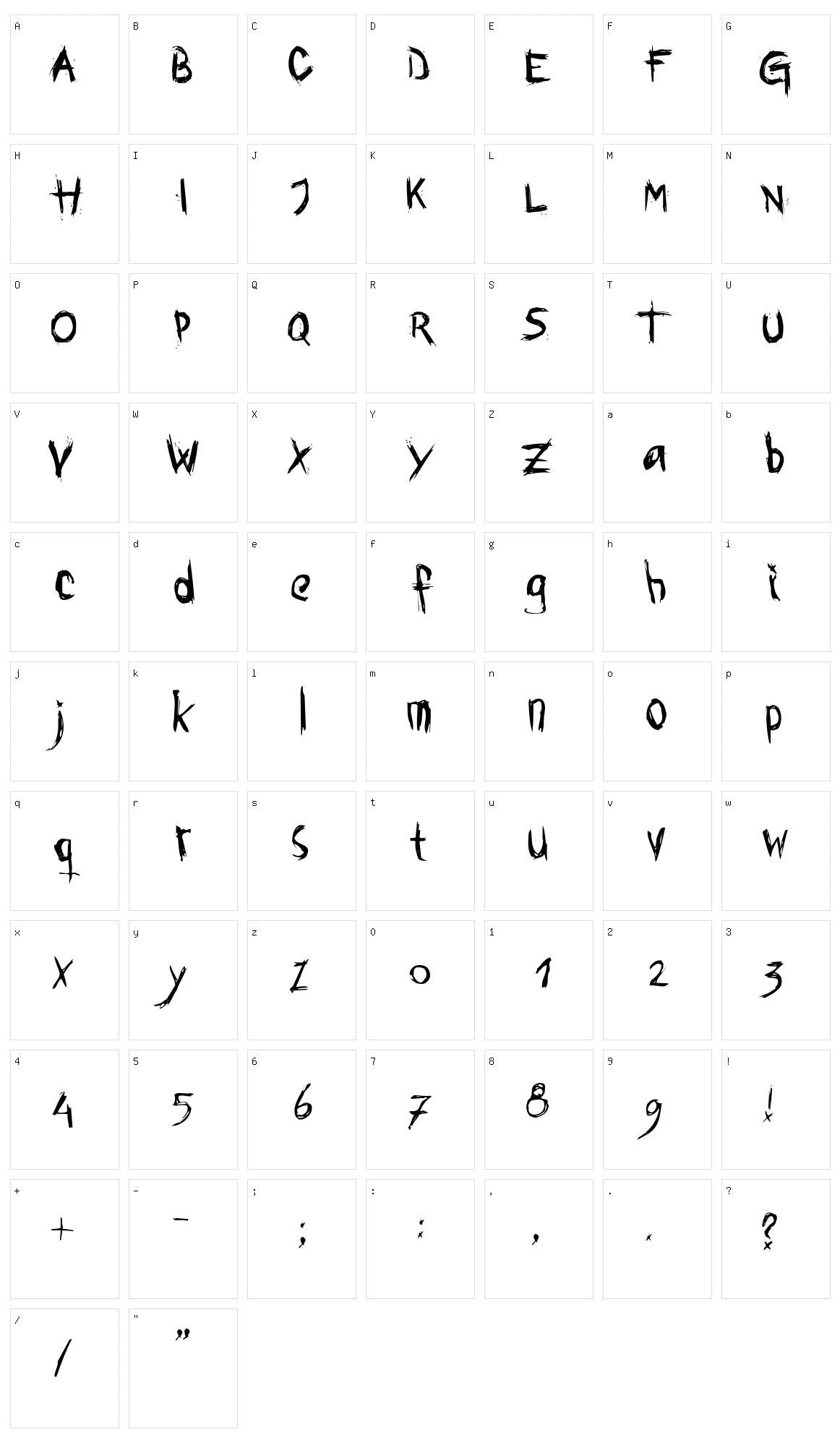
The free font Awe is carefully designed by dawnland, showcasing a thoughtful balance of creativity and usability and falls under the Trash font style. When you download the ZIP file, it contains only 272.15 KB of font files, making it lightweight and quick to download. Please review the license details below to understand permitted usage and distribution rights. If license information is not available, we recommend using this font for personal projects only or contacting the author directly for commercial usage permissions.